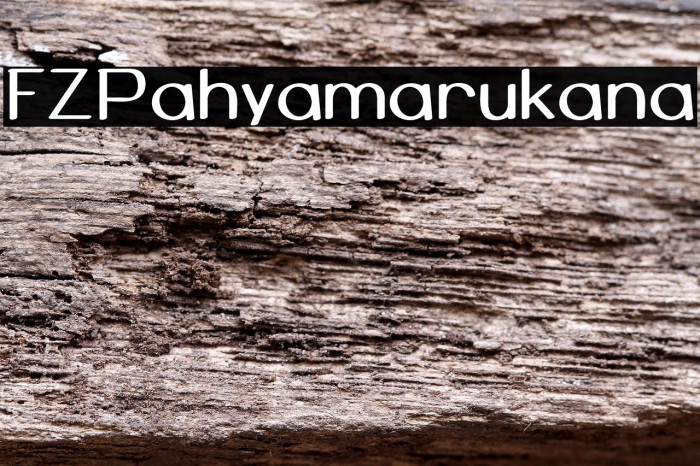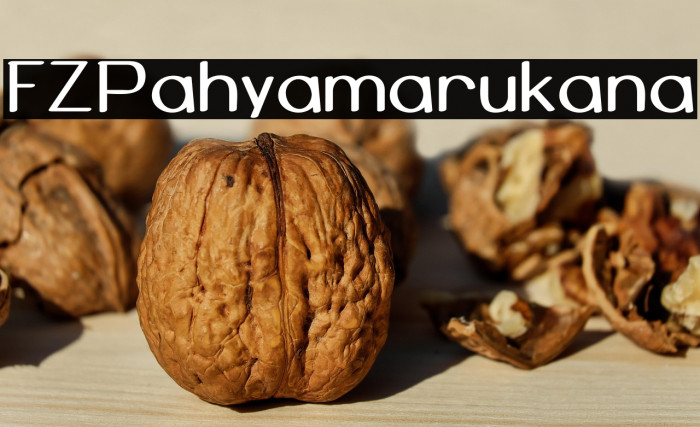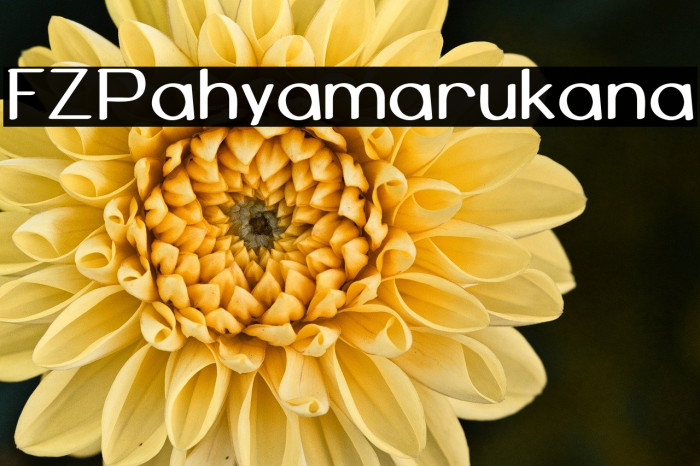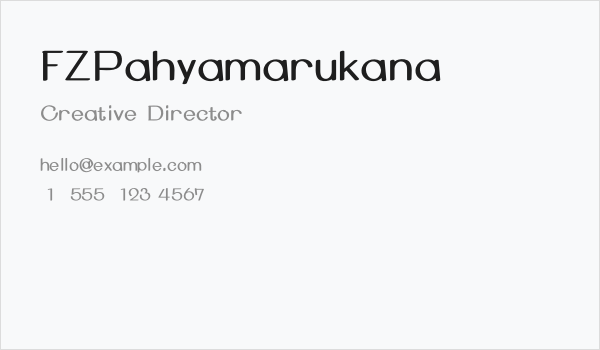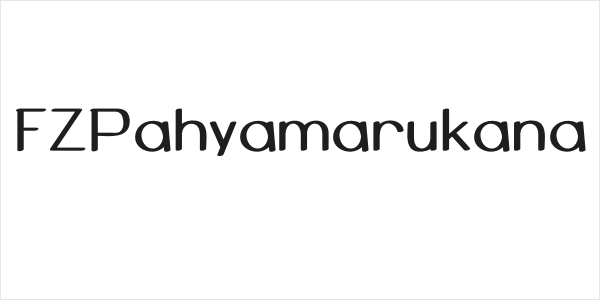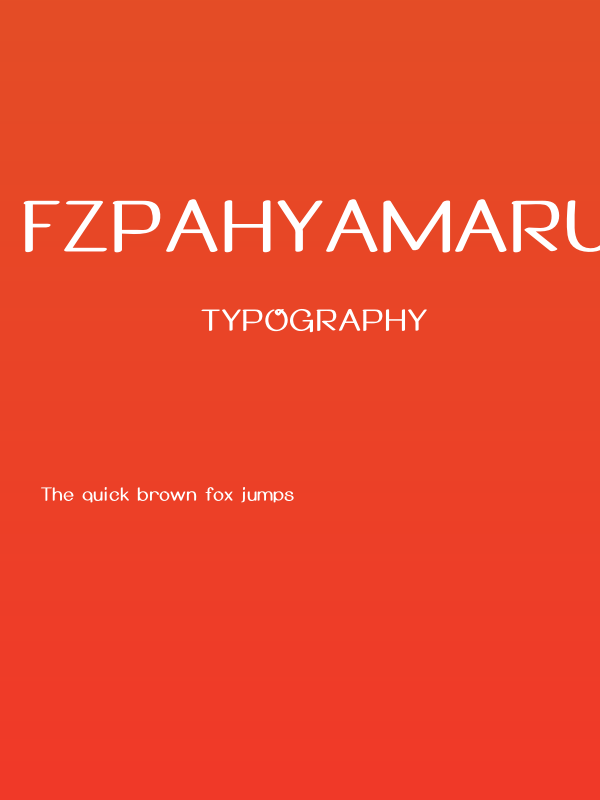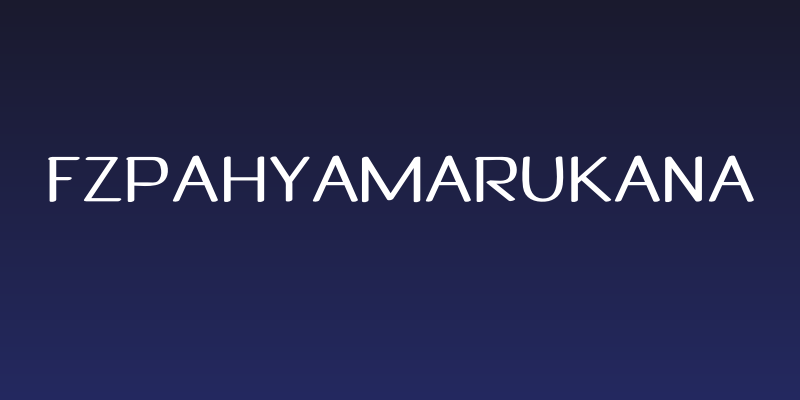
FZPahyamarukana Font
FZPahyamarukana Description
This font features a modern and playful design with a unique twist on traditional letterforms. The characters are rounded and smooth, with a consistent stroke width that gives a clean and approachable appearance. Notably, certain letters incorporate distinctive elements, such as the loop in the lowercase 'g' and the slanted crossbar in the uppercase 'A'. The numerals are clear and easy to read, maintaining the font's overall friendly aesthetic. Special characters are creatively styled, adding to the font's charm and versatility.
| Proposed Projects | Ideal for children's books, playful branding, and creative advertising campaigns. |